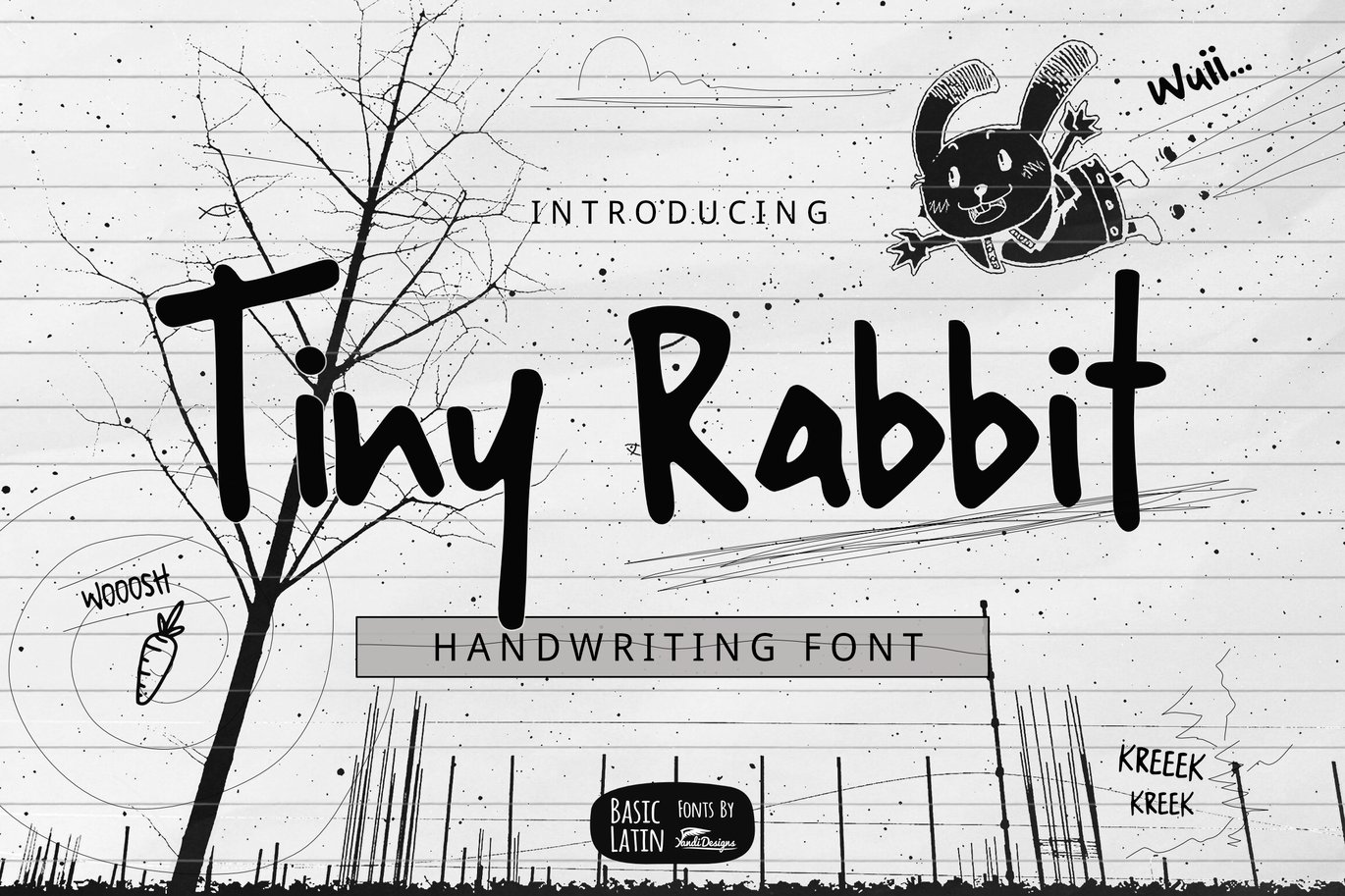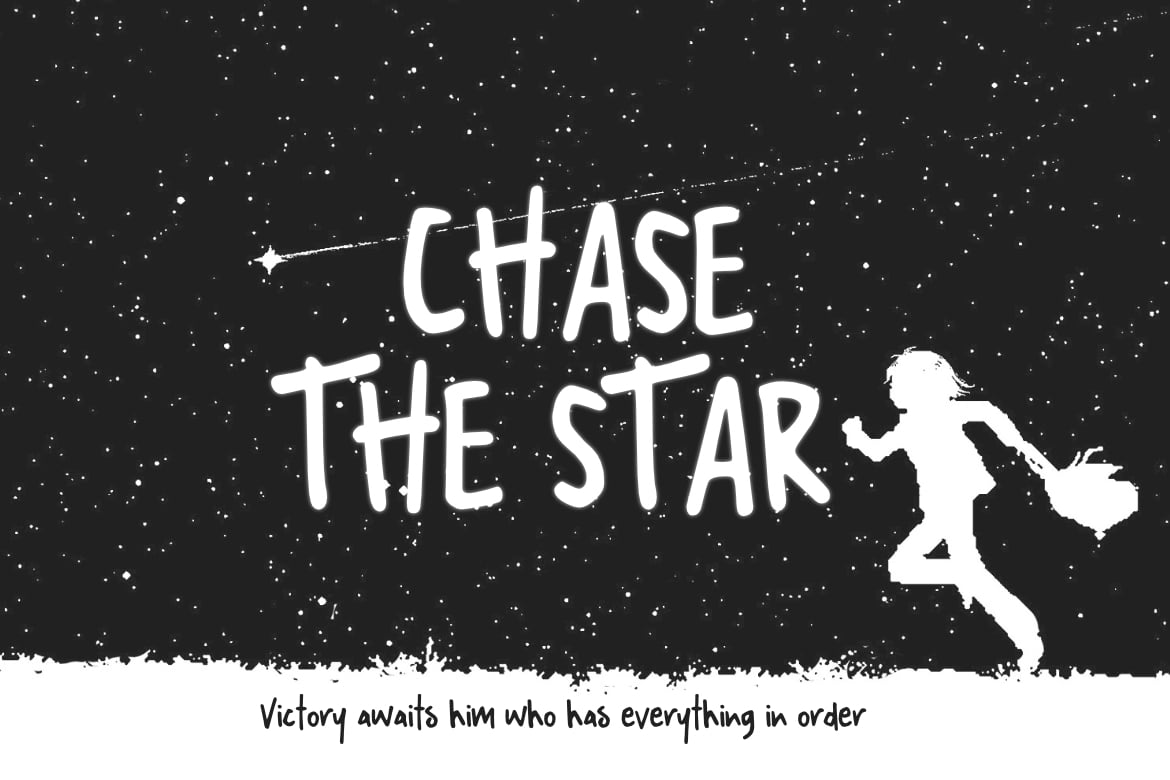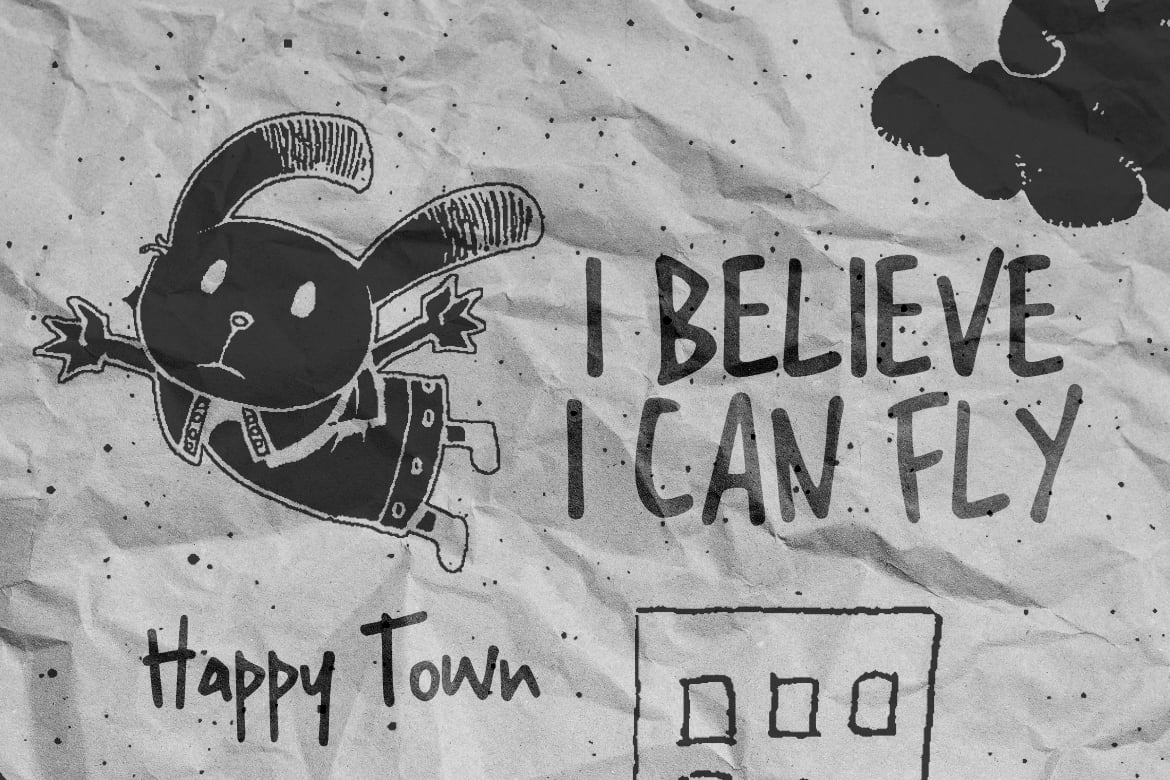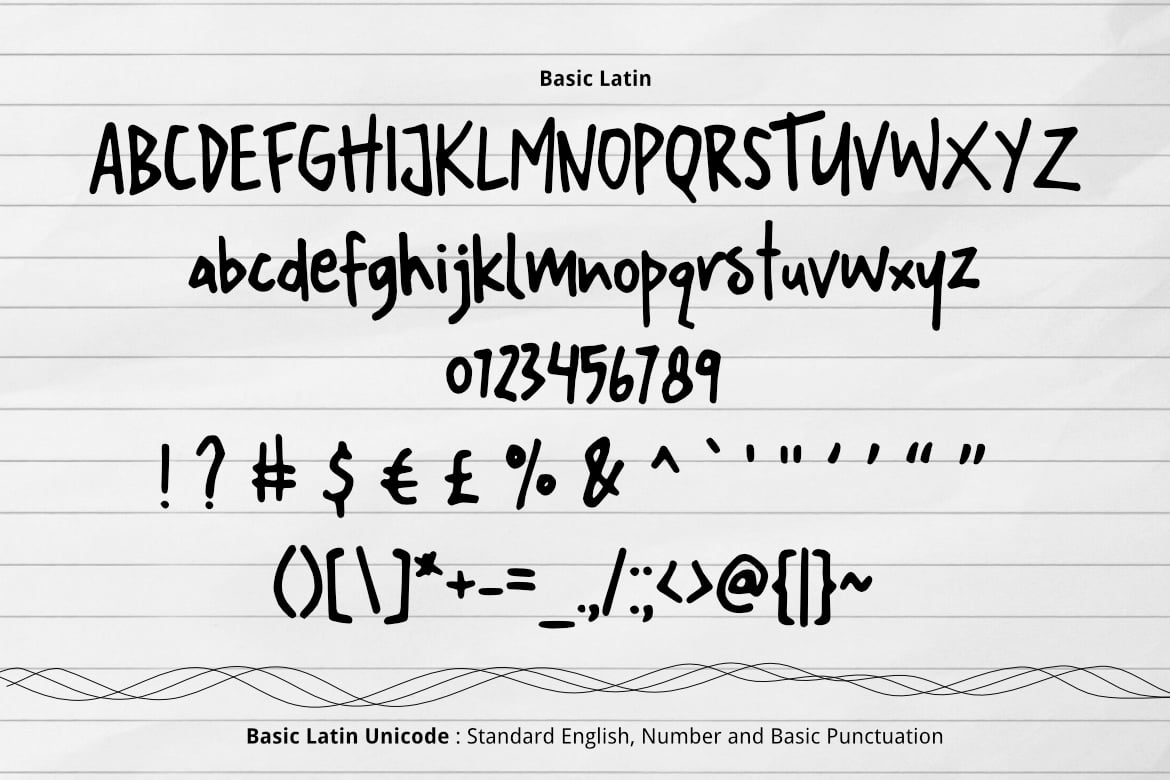
Tiny Rabbit Handwriting Font
Tiny Rabbit is lovely , cute, simple, playful, multipurpose handwritten font , suitable for many project children book, quotes, logo , heading , title etc.
Basic Latin (Standard English character , number, symbol)